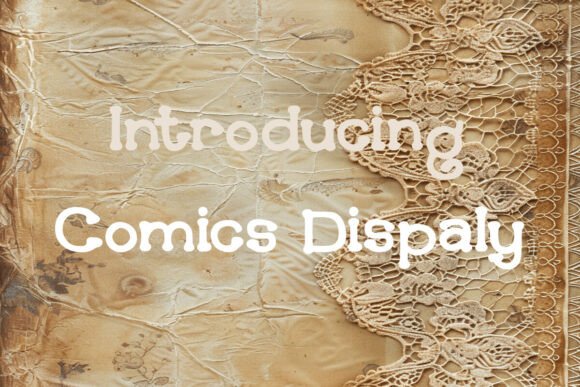
Introducing Comics Display Font: Elevate Your Designs with a Touch of Magic
In the realm of digital design, the right typography can make all the difference. It can elevate your project from ordinary to extraordinary, capturing the essence of your message and engaging your audience like never before. This is where the Comics Display font comes into playβa versatile typeface designed to infuse magic into various creative canvases. Whether you’re working on shirt designs, magazine layouts, breathtaking branding, or personalized greeting cards, Comics Display is poised to become your go-to tool.
Unleashing Creativity with Comics Display
Comics Display is not just another font; it’s a powerful medium that channels your creativity into striking, tangible results. Its versatility is one of its standout features, making it perfectly suited for a wide range of applications. From the dynamic world of shirt designs to the captivating realm of magazine layouts, Comics Display brings a unique flair that is hard to achieve with standard typefaces.
Breathing Life into Designs
One of the most significant advantages of using Comics Display is its ability to stimulate visual interest. In a world where posters and digital content are flooding social media platforms, standing out from the crowd is crucial. Comics Display does exactly that, effortlessly captivating audiences and leaving a lasting impression. Its stunning quality is particularly pronounced in SVG files and Cricut projects, making it a seamless part of your artistic journey.
Perfect for Various Creative Projects
The adaptability of Comics Display is one of its most compelling attributes. Here are some of the areas where it truly shines:
- Shirt Designs: Transform plain tees into eye-catching fashion statements with Comics Display’s unique and captivating letters.
- Magazine Layouts: Add a professional yet creative touch to your magazine spreads, making them more engaging for readers.
- Breathtaking Branding: Establish a strong brand identity with a typeface that speaks creativity and professionalism.
- Personalized Greeting Cards: Make your greeting cards stand out with customized typography that adds a personal touch.
Technical Excellence
Comics Display doesn’t just excel creatively; it also boasts technical qualities that make it a favorite among designers. Its performance in SVG files is particularly noteworthy, ensuring that your designs are not only visually stunning but also scalable to any size without losing quality. For those working with cutting machines, such as Cricut, Comics Display integrates smoothly, allowing for precise cuts and designs that are limited only by your imagination.
Social Media and Beyond
In today’s digital age, having a strong online presence is vital. Comics Display helps you achieve this by providing a typeface that can easily adapt to various social media platforms. Whether you’re creating engaging posters, informative infographics, or catchy social media posts, this font ensures your message is conveyed with clarity and style.
Why Choose Comics Display?
With so many typefaces available, what sets Comics Display apart? Here are a few reasons why it’s becoming a favorite among designers:
- Versatility: Its adaptability across various design projects makes it a valuable asset in any designer’s toolkit.
- Quality: The font’s high-quality design ensures it looks great in any project, from digital screens to print.
- Creativity: Comics Display encourages creativity, offering a wide range of possibilities for customization and experimentation.
Comics Display is more than just a typeface; it’s a creative tool that can elevate your designs to new heights. Its versatility, technical excellence, and stunning quality make it an invaluable asset for designers looking to make an impact. Whether you’re a professional designer or a DIY enthusiast, Comics Display has the potential to transform your creative projects into striking, tangible results. So why wait? Dive into the world of Comics Display and discover a new realm of design possibilities.